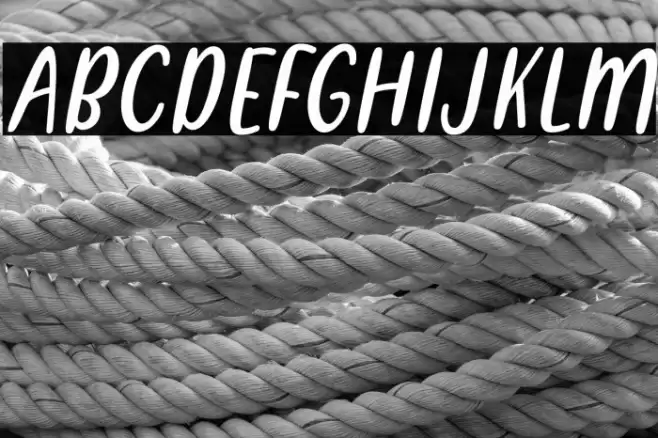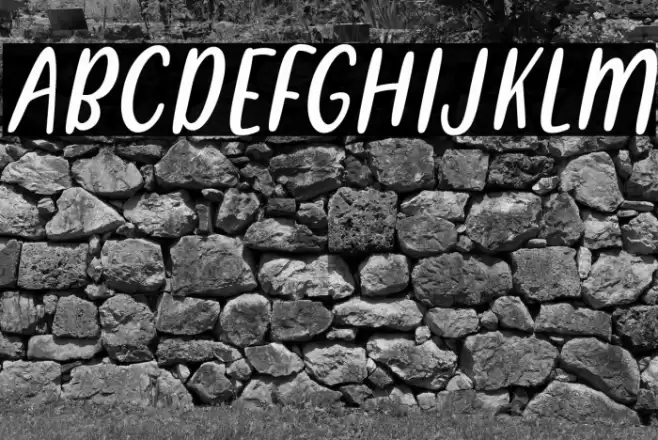
Metultah-Italic Font
Metultah-Italic Description
This font features a lively and dynamic script style with a handwritten feel. The characters are slightly slanted, giving it an italic appearance that adds a sense of motion and fluidity. The strokes are smooth and consistent, with a medium thickness that maintains readability while still conveying a casual and friendly tone. The uppercase letters are bold and prominent, while the lowercase letters are more rounded and approachable. The numerals and special characters are well-integrated, maintaining the overall aesthetic of the font. This style is versatile and can be used in various design contexts.
A dynamic, handwritten script font with an italic slant and medium stroke thickness from Uncategorized fonts.
- Proposed Projects: Ideal for greeting cards, invitations, personal branding, and creative projects that require a personal touch.
- Use Case: Headlines, Logos, Invitations